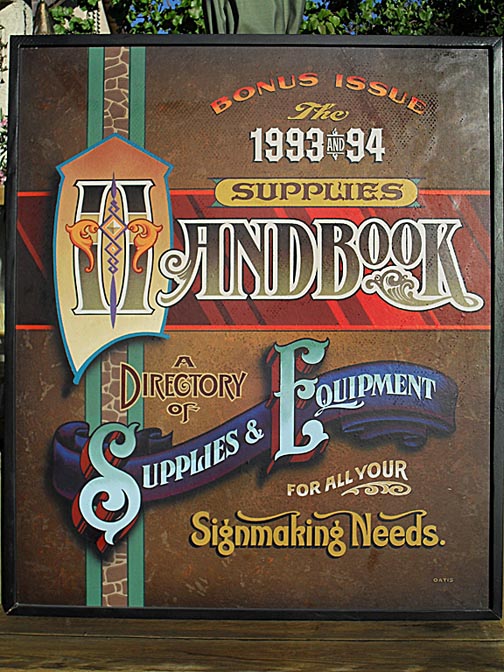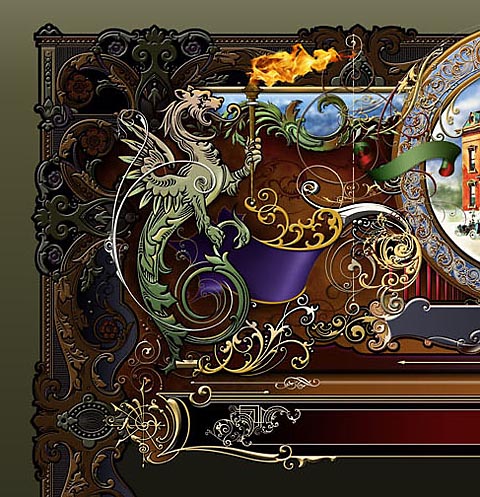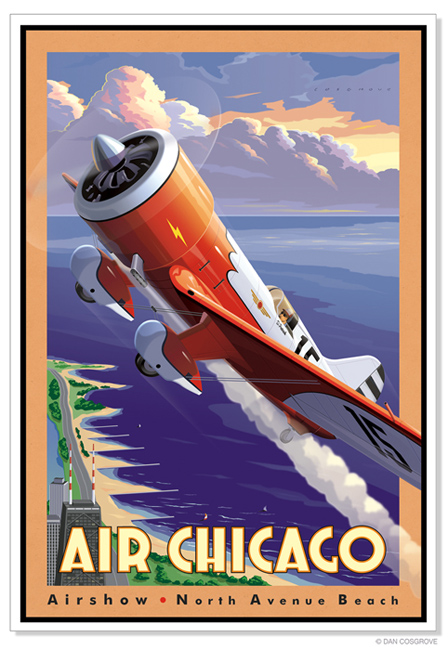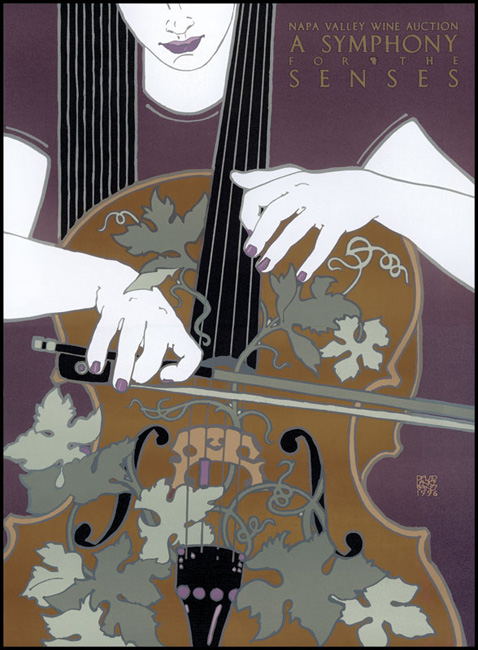
colouring ideas
I have a project on the go right now and am looking for the "inspiration" ideas that others have for colouring a sign. Over the years I've seen some great work from folks on this forum like Mark Oatis, Dave Smith and Mike Jackson that use colours in unusual ways. Mixtures of things that on the surface you'd think impossible. This project of mine has many different panels and various outlines that need something different. Here are just 2 of the ideas I could track down and am sure Mark and Dave won't mind me quoting their work. It goes without saying that I'm doing this all "analogue" right....so visual reference is the thing.....books, methods or periodicals. Thanx in advance
Re: colouring ideas
They've changed the site recently and I don't like it's new interface nearly as well, but colourlovers has endless colour pallets and different patterns that you can try them out on, or you can just create your own pattern and easily try out different colour combinations. You could do the same in Photoshop but this gives you a starting point. For those that have their design in vector format you could just copy some pallets into your editing program and use the dropper to try them out. Magazines (National Geographic is great) can be a great source of colour inspiration as well.
I just reread and noticed the analogue comment, so this might not be of use to you but I'll leave it in case others are interested.
Re: colouring ideas
Doug,
As you know, the nature of the project you're working on is going to drive the color scheme you choose.
Not knowing what you're working on I'll shoot in the dark by sharing a couple of artists whose use of color always brings inspiration.
David Lance Goines has a wonderful muted color palette and a signature use of outlines in his work. One of the things I really like is that he uses sort of a "glow" outline on a lot of his images, reminiscent of German designer Ludwig Hohlwein's poster work. The design of his website is pretty awful but his years of posters displayed are a real treat. http://www.goines.net/poster_art.html
Next, in a completely different direction, I love the work of Dan Cosgrove. His colors are more vibrant and lean toward some of the colors used in fruit crate labels. http://www.cosgrovedesign.com/pagesdc/P ... Spots.html
Hope this helps stir up some ideas.
- David Lance Goines - muted color palette
- Dan Cosgrove - vibrant "fruit-crate" color combinations
Re: colouring ideas
Doug, if you are needing color scheme ideas, check out Adobe Kuler.